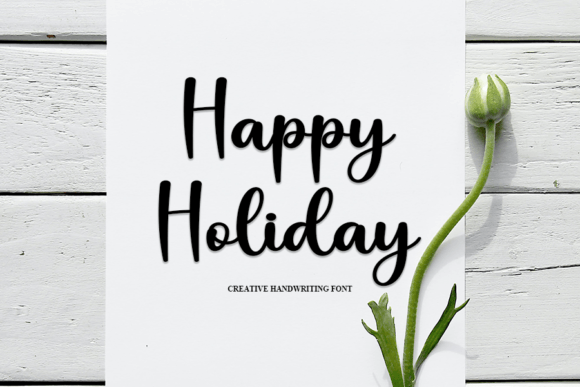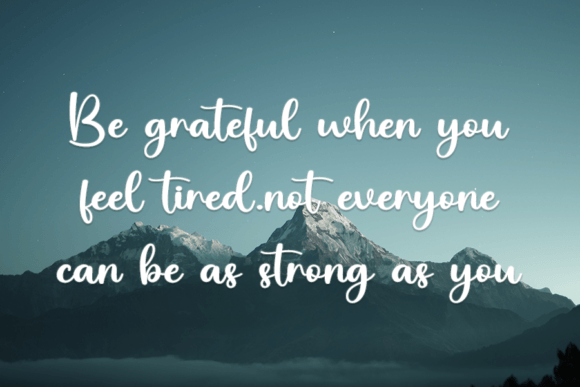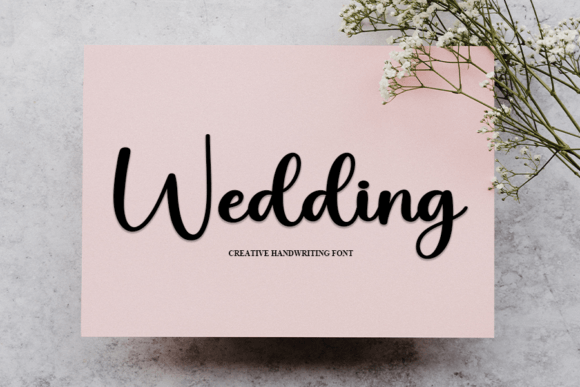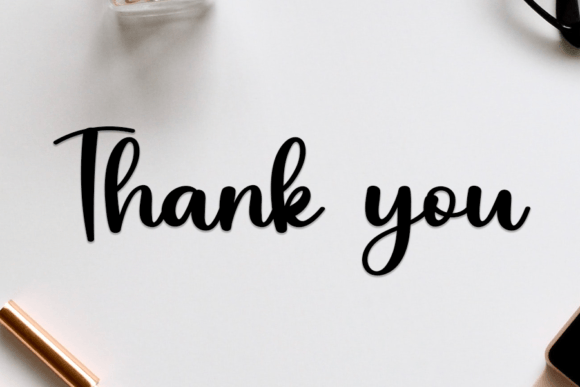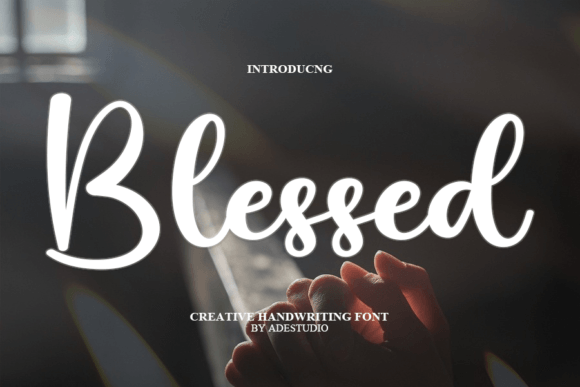
The Blessed Font: A Delicate Handwritten Treasure
I’ll never forget the time I was working on a project for a client’s wedding invitation. I had spent hours agonizing over the design, but something was off. The whole thing felt stiff and uninviting. And then it hit me: the font was all wrong. I needed something delicate, yet elegant; something that would make the invitation feel like a personal, handwritten message. That’s when I discovered the Blessed font.
So, what makes Blessed so special? Here are a few things I love about this font:
• ✨ Delicate, handwritten feel that’s perfect for invitations, letters, and other personal designs
• ✅ Highly legible, even at smaller sizes
• 💫 Unique character set that adds a touch of whimsy to any design
• 🎨 Versatile and can be used for a wide range of projects, from food labels to titles and headings
Of course, no font is perfect. Here are a few quirks to keep in mind:
• 🤔 Some users may find the font a bit too delicate for certain applications (e.g., signage or large-format printing)
• ⚠️ Limited availability of certain OpenType features (more on this later)
The Story Behind Blessed
Blessed was designed by a talented typographer who wanted to create a font that would evoke a sense of warmth and personality. The designer drew inspiration from classic handwritten scripts, but with a modern twist. The result is a font that’s both elegant and approachable.
What is the Blessed font best used for? Blessed is perfect for designs that require a personal touch, such as invitations, letters, food labels, and titles.
Is Blessed a script font? While Blessed has a handwritten feel, it’s not a traditional script font. It’s more of a delicate, cursive-inspired font.
Does Blessed support OpenType features? Yes, Blessed supports some OpenType features, including glyphs and stylistic alternates. However, the availability of these features may vary depending on the platform and software you’re using.